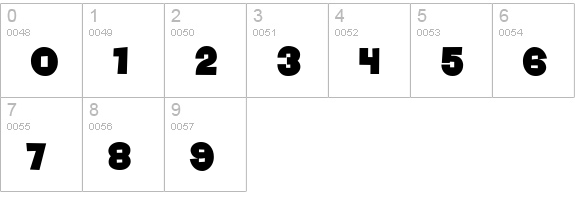
Nightclub BTN Bold is a strong, high-contrast variant in the Nightclub typeface family \xE2\x80\x94 well suited to headlines, attention-grabbing titles, and strong calls-to-action.
Nightclub BTN Bold is a bold and vibrant display font that exudes energy and style. Perfect for creating eye-catching headlines and promotional materials, this font is sure to make a statement. With its sleek and modern design, Nightclub BTN Bold is the perfect choice for projects that require a touch of elegance and sophistication. Best of all, Nightclub BTN Bold is available for free download at FontsMarket.com. This means you can easily access this stylish font and use it in your projects without any cost. Don't miss out on the opportunity to add Nightclub BTN Bold to your font collection and enhance your designs with its bold and striking aesthetic. Download it today and start creating standout designs that will leave a lasting impression.